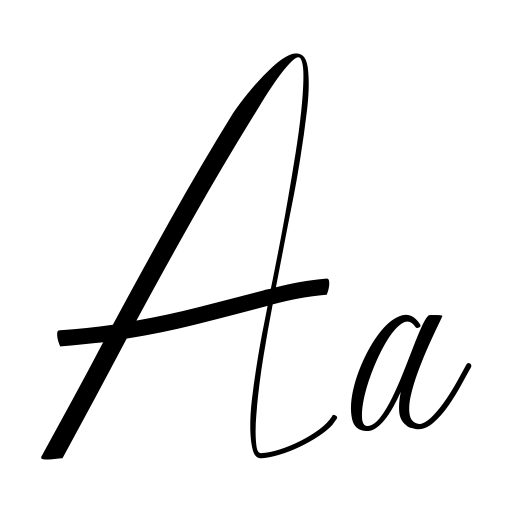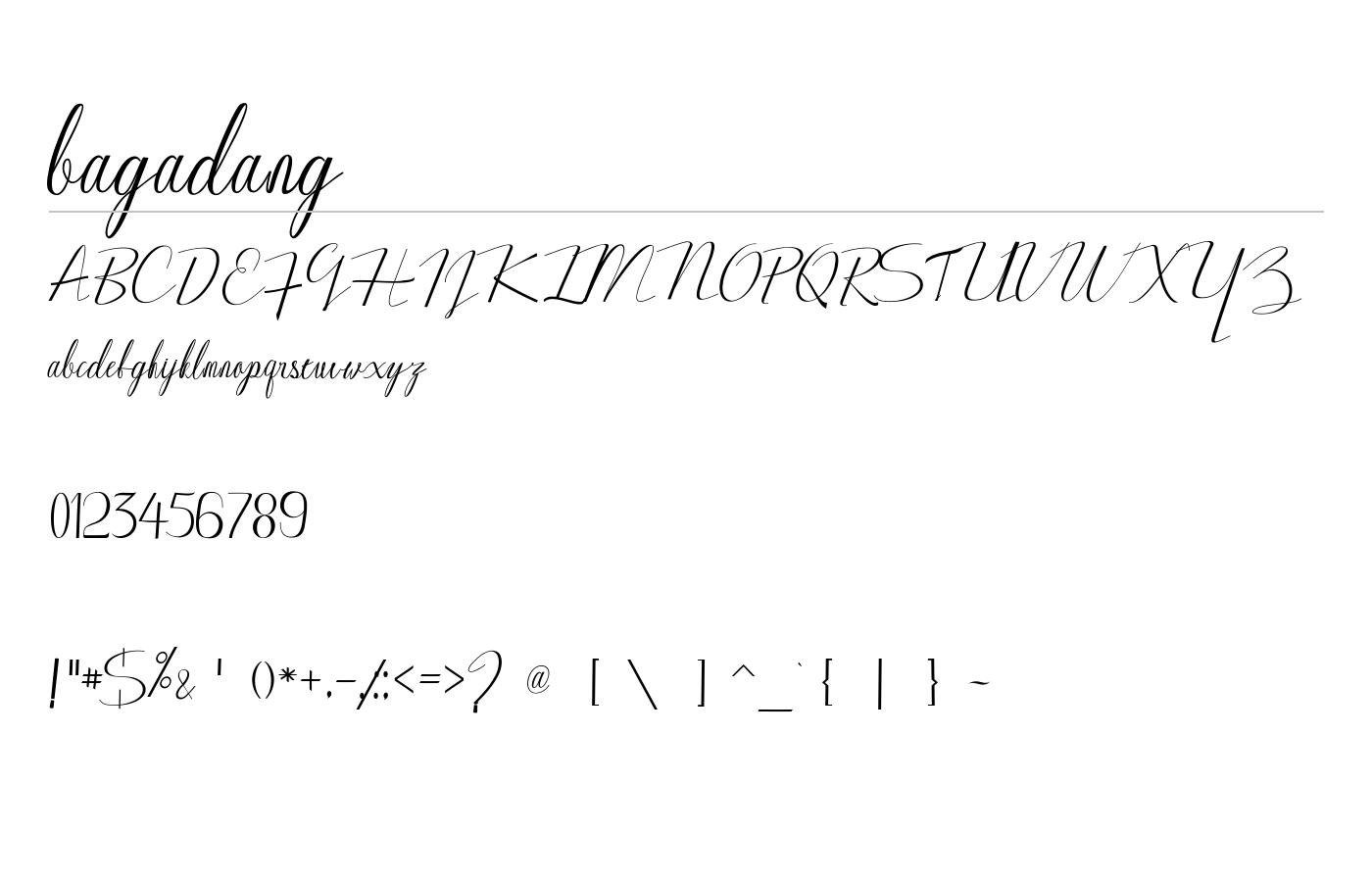
Bagadang is an elegant, slender script font with delicate, flowing strokes that evoke a refined and graceful feel. Its tall, narrow letterforms and high contrast between thin and slightly thicker lines give it a sophisticated and stylish look, ideal for luxury branding, invitations, or editorial headlines where a touch of classic charm is desired. This font works best in upscale design contexts that require a feminine, artistic touch without sacrificing readability.
bagadang Font
About bagadang Font